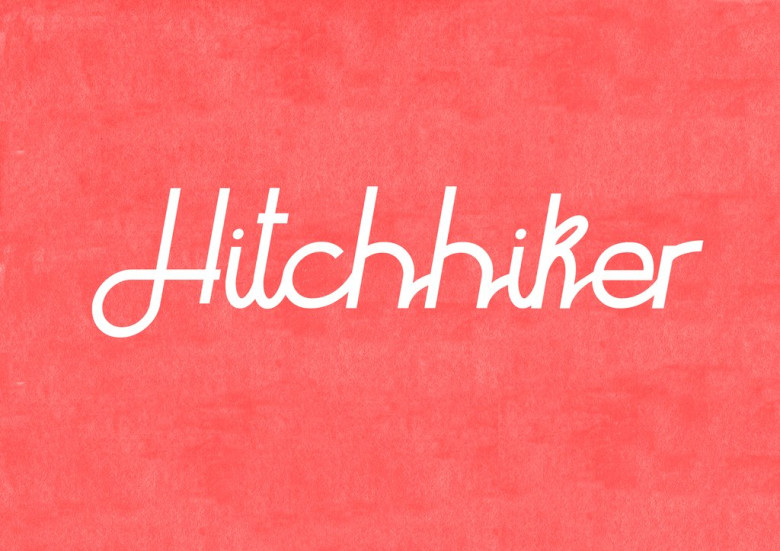
Hitchhiker Typeface
Introducing Hitchhiker Typeface! Is a perfect handwriting style. I think it is good for many different jobs. Hitchhiker designed and shared by Slava Krivonosov. Inspired by America’s mid-20th century and road travelling philosophy, especially by Jack Kerouac’s novel “On the road”. Totally free.